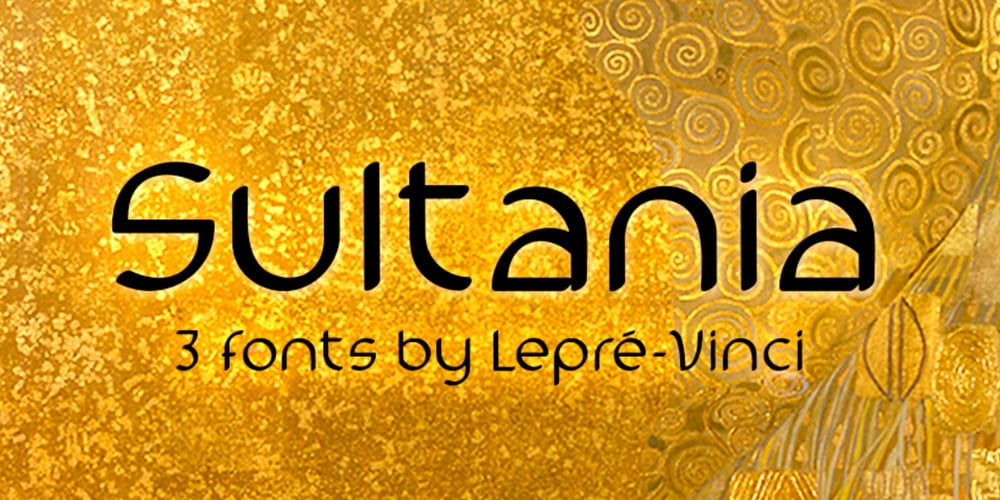
Sultania Font Family was designed by Lepré-Vinci and published by URW Type Foundry. Sultania contains 3 styles and family package options. Sultania is a harmonic synthesis of the old characters’ suppleness and the resolute, clean design of modern typography. The rich in contrast calligraphic approach with thick and thin strokes is still visible and you can almost feel traces of ink on paper while it’s shapes in general, without serifs and any embellishments, proclaim its up-to-dateness swinging between roundness and rigor. Elegant, noble, yet still affected by traces of the handwritten script, Sultania is reminiscent of power, wealth, mind and culture. Sultania’s historical roots and it’s originality remind of oriental colors. A close Orient, at the gates of Europe, in which Latin characters are mixed with distant sounds. The Byzantium of the Sultans.